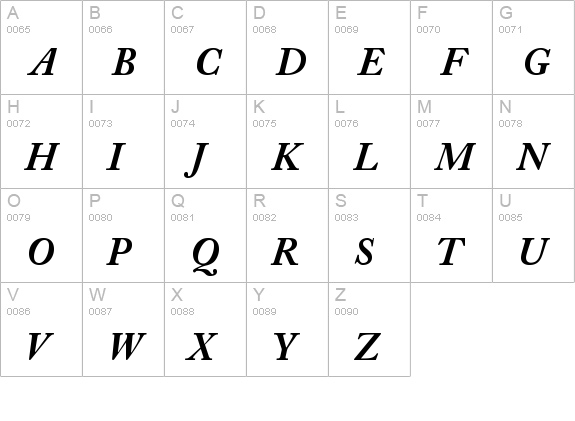
Adobe Caslon Pro Bold Italic is a strong, high-contrast, italic variant in the Adobe typeface family \xE2\x80\x94 well suited to headlines, attention-grabbing titles, and strong calls-to-action.
Adobe Caslon Pro Bold Italic is a timeless and elegant font that exudes sophistication and flair. With its bold and italicized style, this font is perfect for adding a touch of drama and emphasis to any design project. The strong, yet graceful letterforms of Adobe Caslon Pro Bold Italic make it a versatile choice for headlines, titles, and other display purposes. What makes Adobe Caslon Pro Bold Italic even more appealing is that it is available for free download at FontsMarket.com. This means that you can easily access this high-quality font without any cost, making it a valuable addition to your font collection. Whether you are working on a professional project or a personal creative endeavor, Adobe Caslon Pro Bold Italic is sure to elevate your design with its bold and striking appearance.